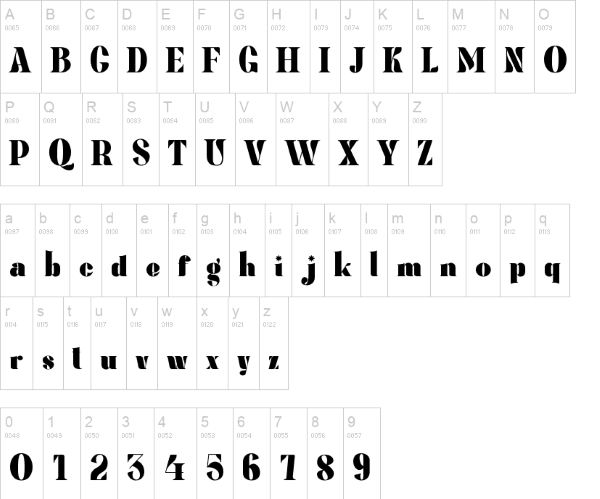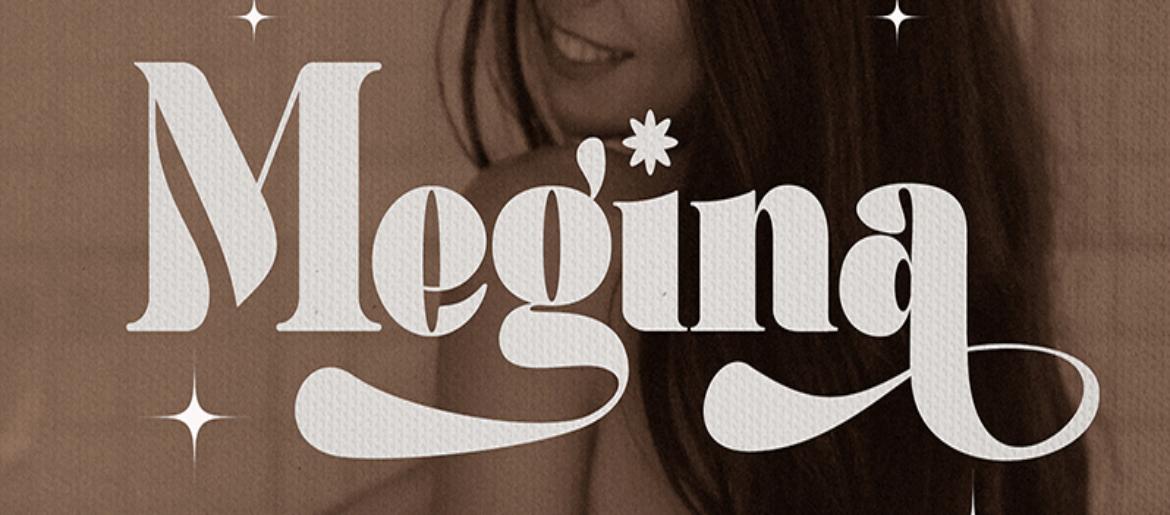
Megina Font
Megina Font is a unique and elegant serif typeface that blends modern sophistication with classic charm. Designed for high readability, it is ideal for branding, logos, wedding designs, packaging, labels, invitations, stationery, and social media content. Megina delivers a polished, professional appearance, making it suitable for projects that demand clarity, refinement, and timeless visual elegance.
➤ Style: Retro